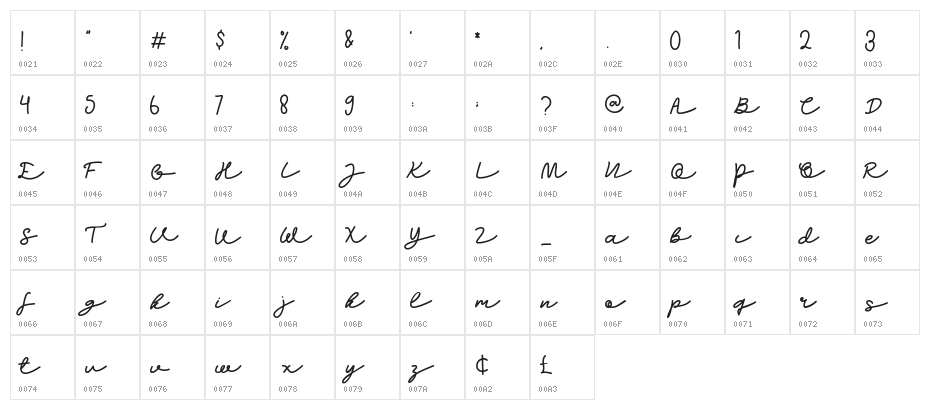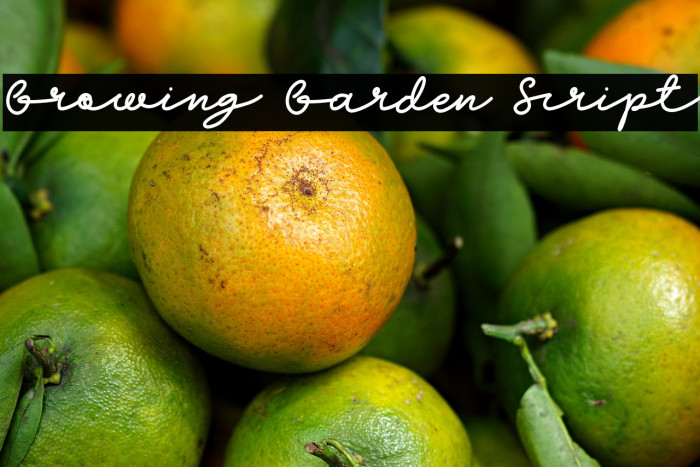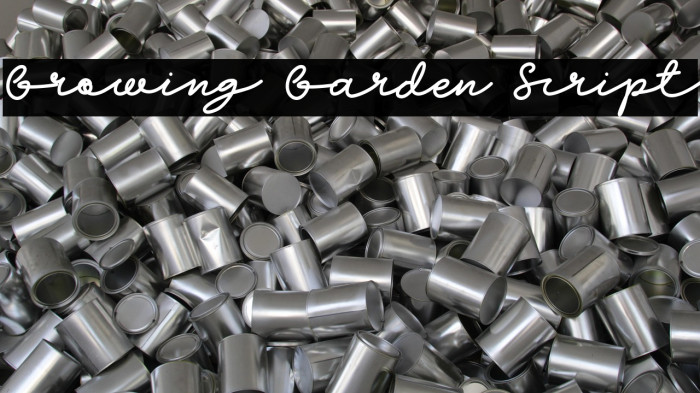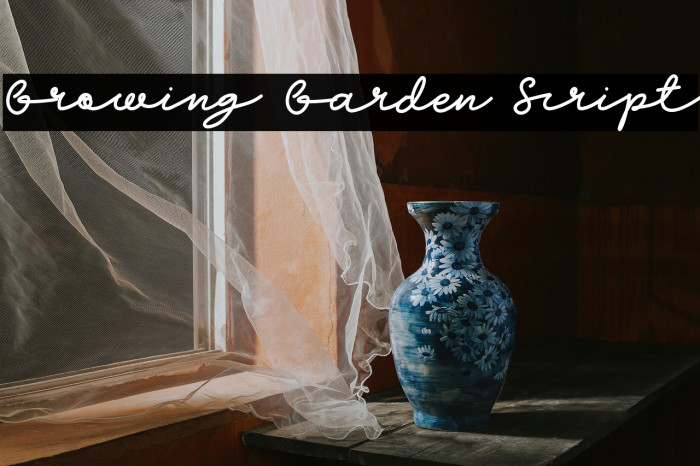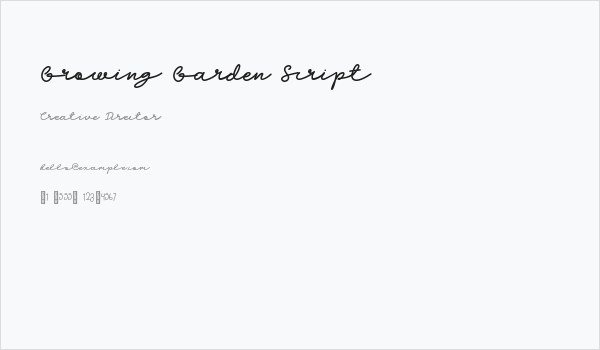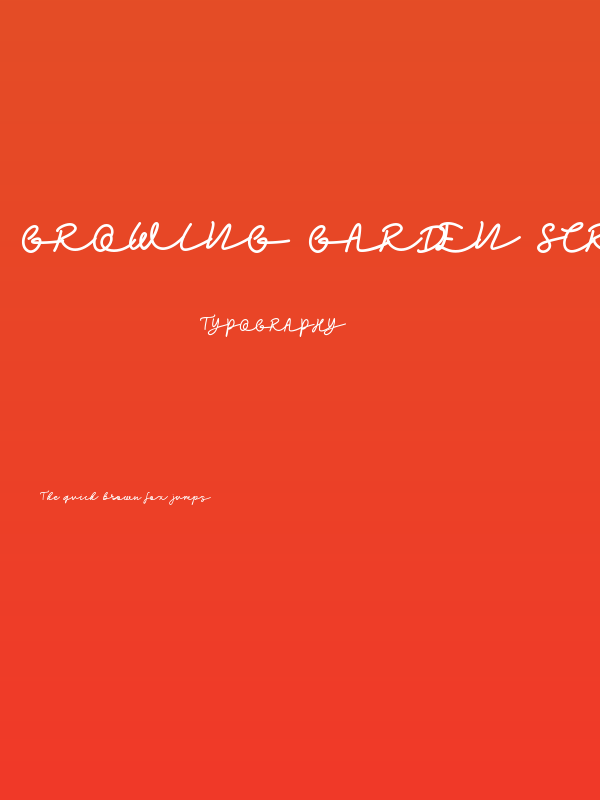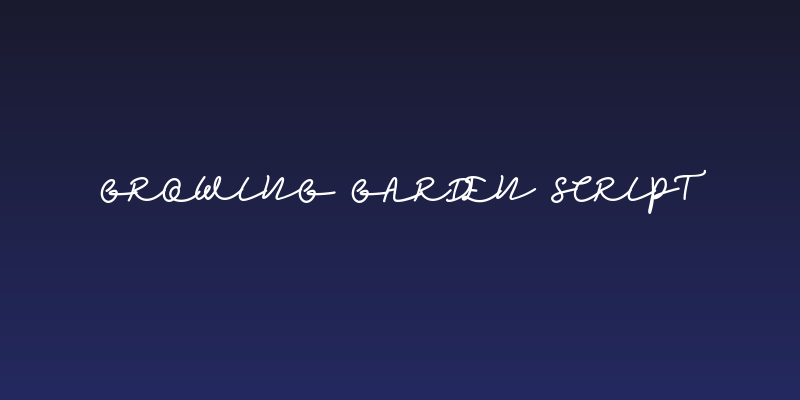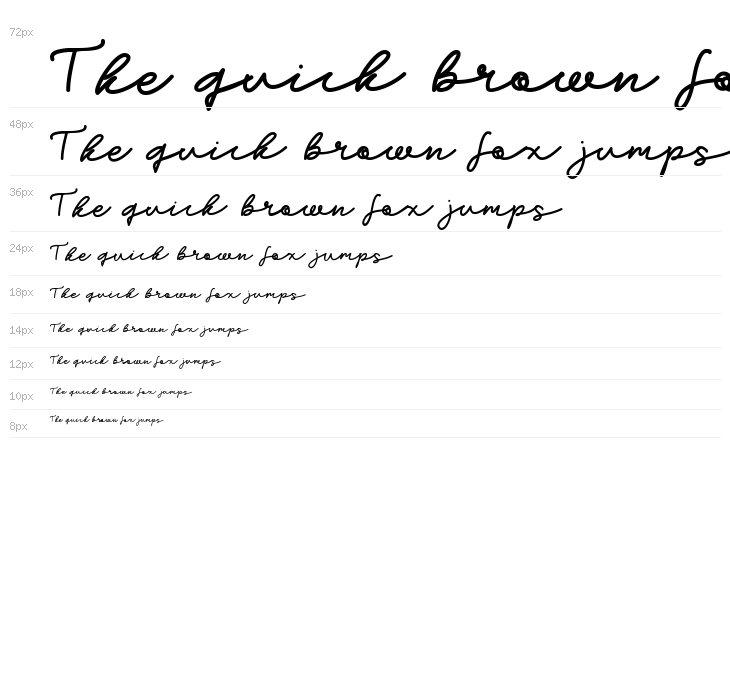
Growing Garden Script Font
Growing Garden Script Description
This font exudes a charming and whimsical style, characterized by its fluid, cursive script. The letters are interconnected, creating a seamless flow that mimics natural handwriting. Each character is crafted with a playful elegance, featuring smooth curves and a consistent stroke width. The uppercase letters maintain a graceful height, while the lowercase letters are slightly more compact, enhancing readability. The numerals and special characters are designed to complement the overall script style, maintaining the same fluidity and charm. This font is perfect for projects that require a personal touch, such as invitations, greeting cards, or branding materials that aim to convey warmth and creativity.
| Overall Style | Whimsical |
| Use Case | Logos, Invitations, Greeting Cards |
| Proposed Projects | Ideal for invitations, greeting cards, personal branding, and creative projects. |